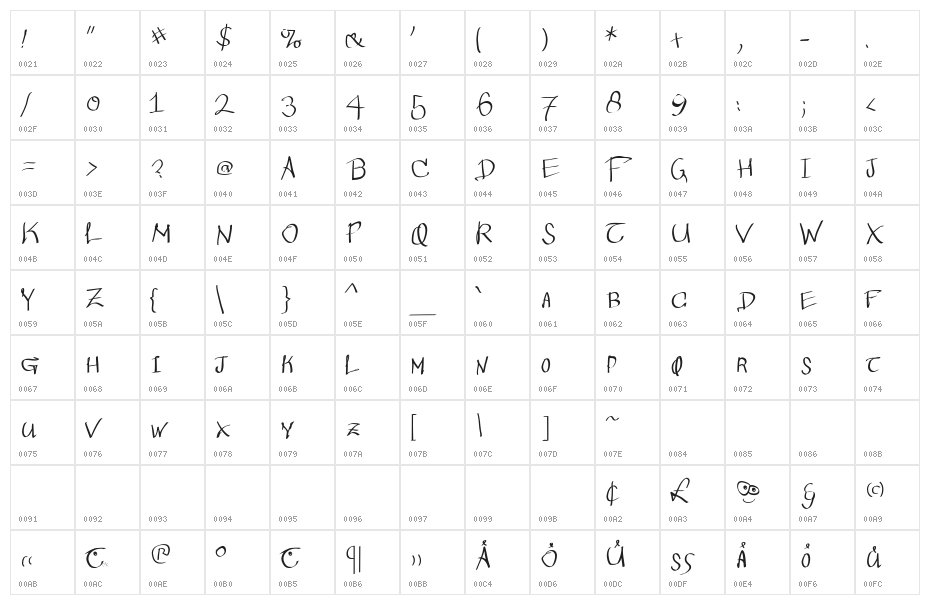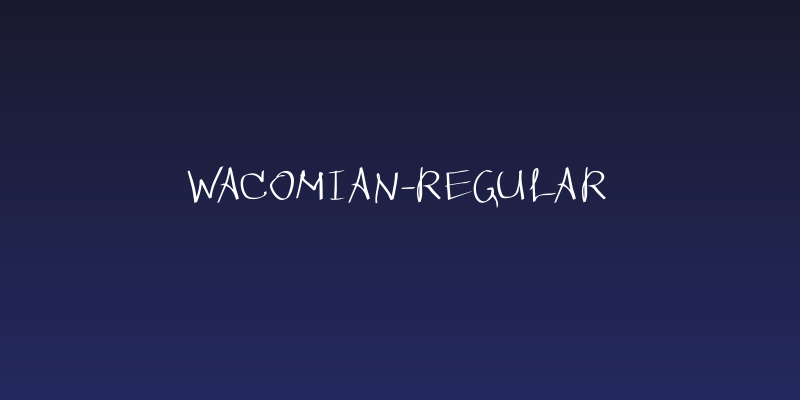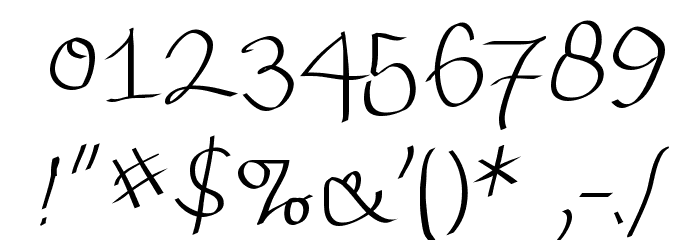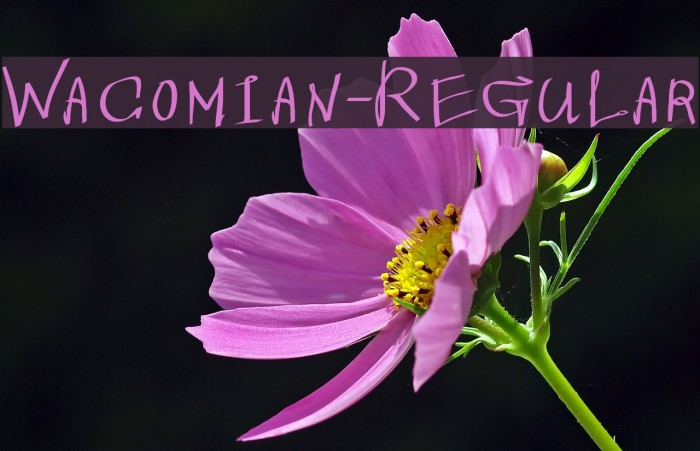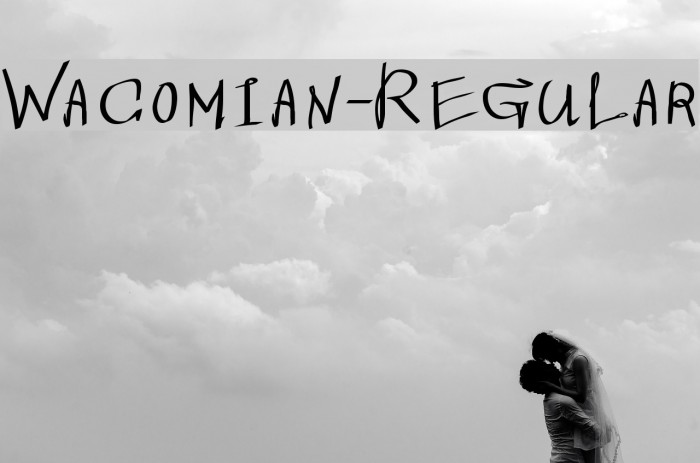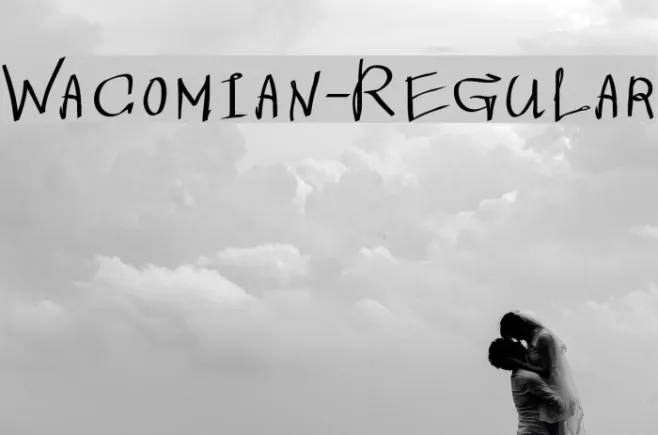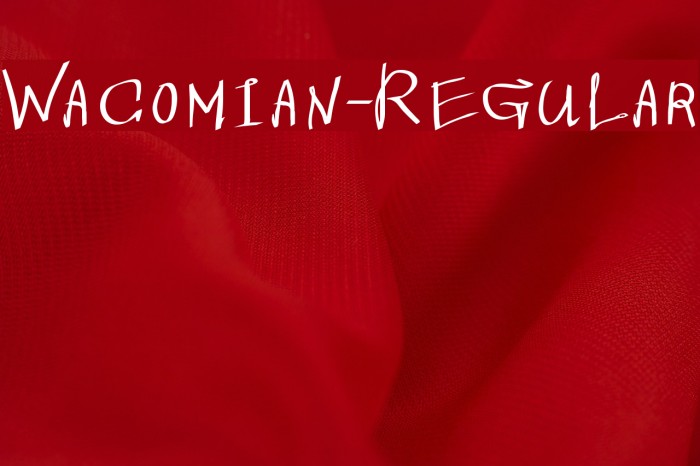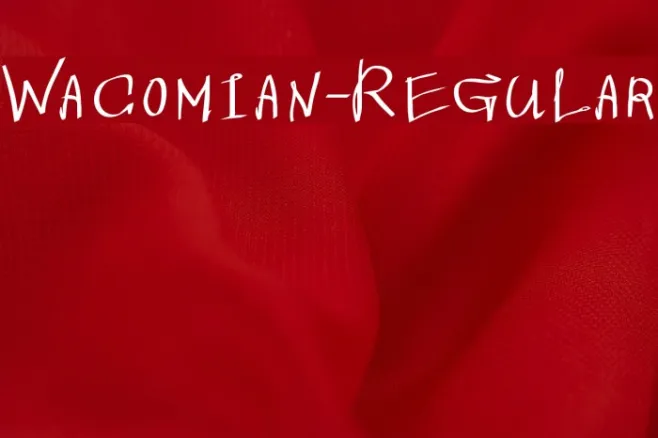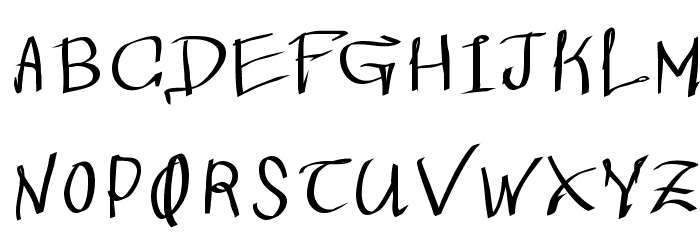
Wacomian-Regular Font
Wacomian-Regular Description
This font exhibits a dynamic and expressive style, characterized by its handwritten appearance. The letters are slightly slanted, with varying stroke thickness that adds a sense of movement and fluidity. The uppercase and lowercase letters maintain a consistent style, with unique flourishes that give each character a distinct personality. The numerals and special characters follow the same aesthetic, ensuring a cohesive look across all text elements. The font's playful yet elegant design makes it suitable for creative projects that require a personal touch.